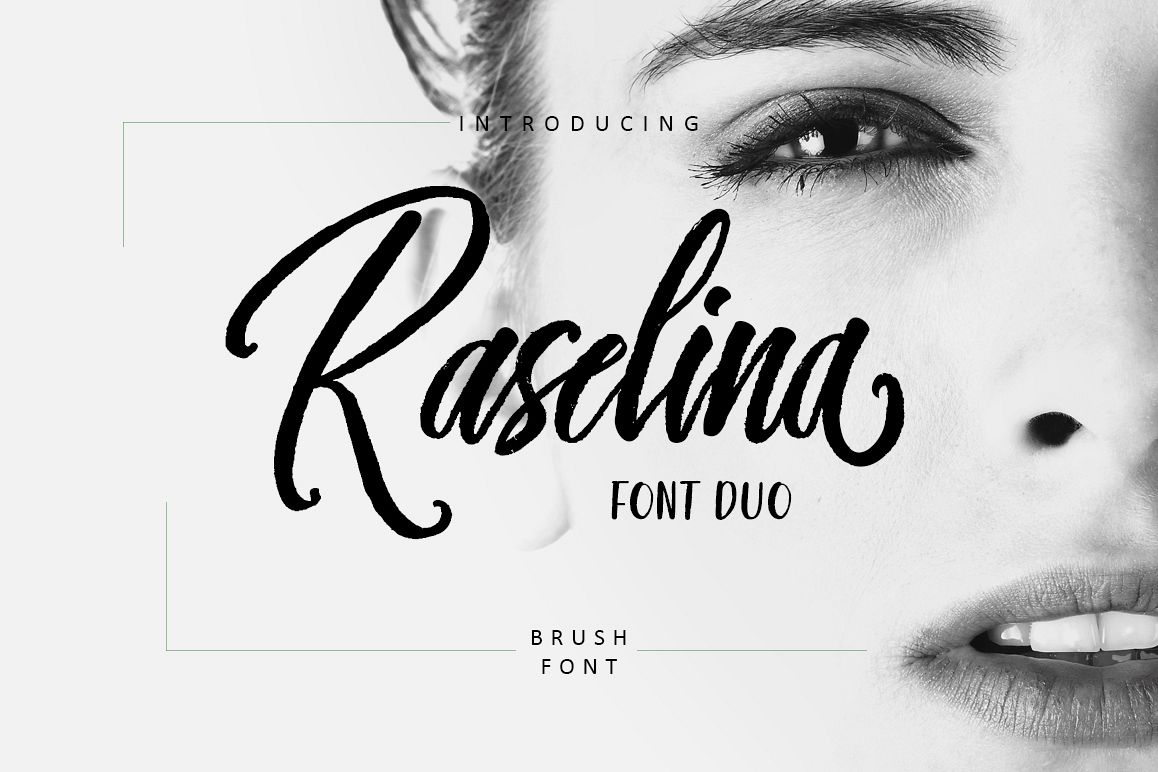
Raselina Font Duo
Raselina
RASELINA SANS
Raselina is a natural brush with a smooth and stylish font. This font will give you fresh and modern design that
looks cool and will look beautiful with offers, fashion magazines, logos, greetings, layouts, invite prints & more.
Raselina Sans which contains only uppercase-only letters, is suitable for supporting the text to complete the
Raselina font. Also includes numbers and a large number of punctuation.
Raselina contains standard characters, uppercase, lowercase letters, numbers, dashes, punctuation,
ligatures, and international characters..